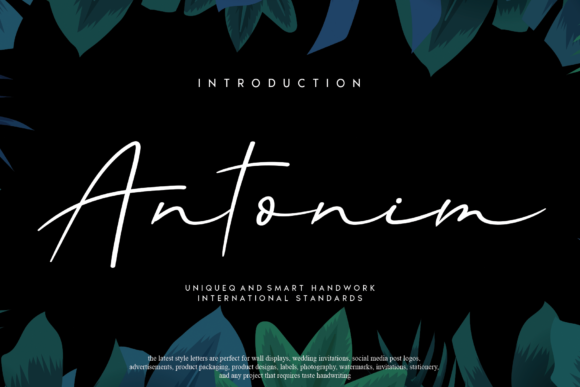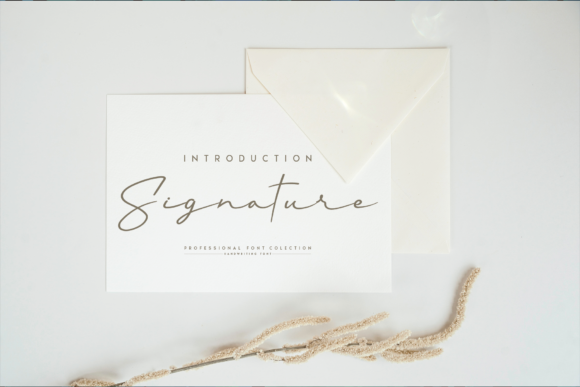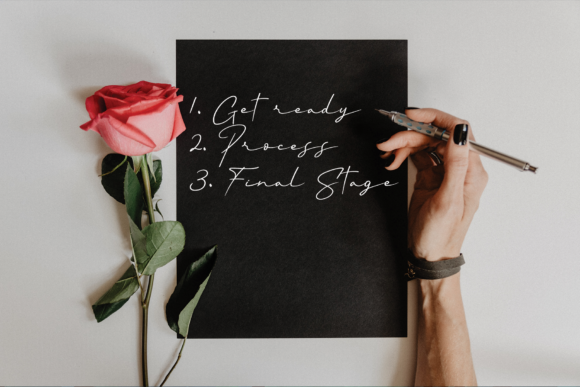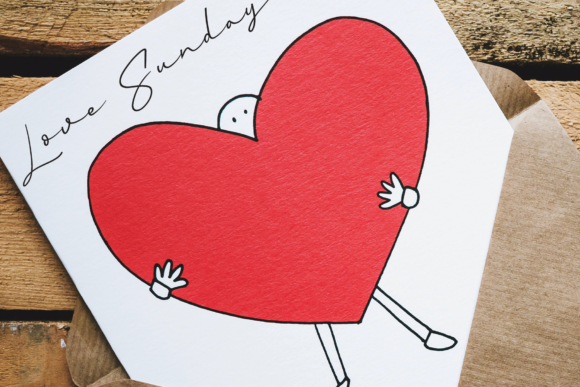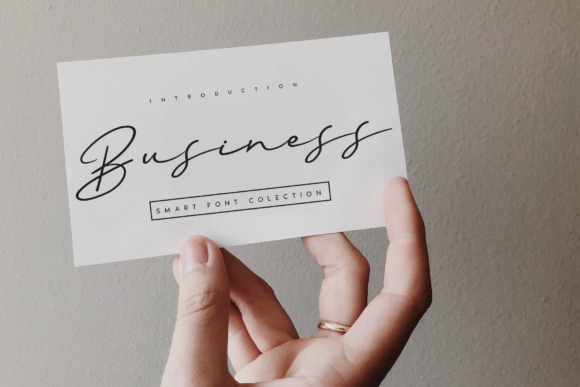
Antonim Font
Antonim: A Delicate, Elegant, and Flowing Handwritten Font
Introducing Antonim, a font that exudes delicacy, elegance, and flow in every stroke. With its beautiful and well-balanced characters, Antonim is a perfect match for a wide pool of designs. Add it to your most creative ideas and witness how it brings them to life with grace and charm!
The allure of Antonim lies in its delicate and flowing touch. Each letter is meticulously crafted, capturing the essence of sophistication and elegance.
Designing with Antonim is a delightful journey. Its handwritten grace and balanced characters add a touch of authenticity to your creations, making them stand out with timeless appeal.
Antonim effortlessly complements various projects. Whether you’re designing exquisite wedding invitations, heartfelt thank-you cards, inspiring quotes, or any other design that seeks elegance and sophistication, Antonim delivers with grace.
Unleash your creativity with Antonim. Its delicate and flowing style allows you to create designs that resonate with refinement and beauty, captivating your audience.
Embrace the magic of Antonim’s elegant flow. It adds a sense of poetry and grace to your projects, creating designs that evoke emotions and leave a lasting impact.
In conclusion, Antonim is more than just a font; it’s a masterpiece that elevates your designs to a higher level of sophistication. With its delicate touch and well-balanced characters, Antonim opens the door to endless creative possibilities. Embrace its elegance and let it breathe life into your favorite projects and beyond. For designs that exude charm and refinement, Antonim is the font that adds a touch of timeless elegance. Let Antonim be the muse that inspires your creativity and elevates your designs to new heights of sophistication and beauty.